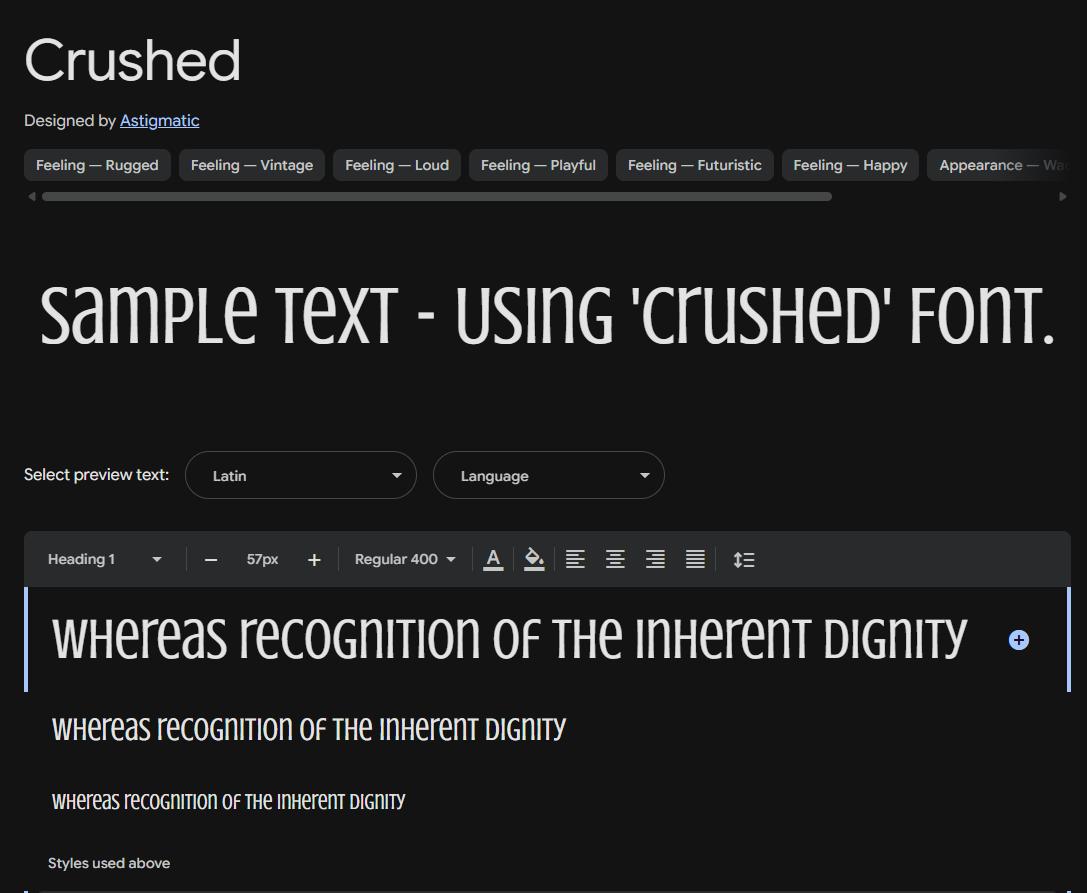
Crushed, an innovative single-style display typeface engineered by Brian J. Bonislawsky of Astigmatic, represents a radical departure from traditional typographic taxonomy by synthesizing uppercase and lowercase glyph morphologies into a cohesive, uniform cap-height baseline. This sans-serif face utilizes condensed horizontal proportions and elongated vertical stems to optimize spatial economy, making it a powerful asset for modern UI/UX environments where high character density is a technical priority. By intentionally blurring the lines between case-specific anatomy, Crushed achieves a rhythmic texture through its unique counter-spaces and terminal apertures, offering a distinctive visual hierarchy that bypasses conventional kerning limitations to deliver a playful yet professional aesthetic in high-impact headline applications.
The Crushed font family functions as a masterclass in controlled eccentricity, utilizing a "tossed" glyph architecture that oscillates between a stiff verticality and a wacky baseline shift to produce a loud, high-contrast display presence. This Astigmatic-designed sans-serif captures a uniquely rugged and vintage soul through its condensed letterforms, yet it simultaneously projects a futuristic minimalism that allows the typeface to appear both playful and happy in commercial contexts. By integrating these disparate aesthetics, the typeface achieves a cute but assertive typographic rhythm, where each character's lack of traditional alignment transforms standard text into a dynamic visual narrative optimized for modern digital legibility and retro-inspired punch.
Incorporating the Crushed typeface into enterprise-level financial reporting, legal contracts, or medical diagnostic interfaces represents a significant departure from typographic best practices, as its distinctive blend of lowercase and uppercase heights creates an erratic baseline that severely compromises reading speed and cognitive processing. Due to its condensed structure and whimsical x-height variability, this single-weight display face fails to provide the necessary stroke contrast and optical clarity required for dense, information-heavy environments, often violating accessibility principles related to character recognition and visual hierarchy. In industries where brand authority is tethered to geometric precision and traditional serif or sans-serif legibility, the playful, non-conformist rhythm of Astigmatic's design undermines professional gravitas and risks misinterpretation of critical data points.
Crushed is generally not recommended for long-form body text because its condensed letterforms and unique stylization can significantly hinder reading speed over time. The font's tight kerning and distinctive verticality create a high cognitive load, making it technically unsuitable for blocks of text exceeding a standard paragraph length.
Geometric sans-serifs like Montserrat or Open Sans provide a balanced contrast to the quirky, narrow proportions inherent in the Crushed typeface. Utilizing a low-x-height companion font ensures that the unique ascenders of Crushed maintain their role as primary focal points within a complex typographic hierarchy.
Using Crushed in all-caps significantly reduces legibility because the design relies heavily on the specific interplay between lowercase and uppercase heights to define its character. Technical analysis of word shapes shows that uniform cap-height removes the vital silhouette cues necessary for rapid letter recognition in narrow-width typefaces.
Crushed excels in large-scale display applications where its unique, condensed letterforms can command visual attention without occupying excessive horizontal space. The font's glyph construction is optimized for high-resolution output, maintaining sharp edges and consistent stroke weights even when scaled above 72 points.
High-contrast color palettes enhance the visibility of Crushed by making its slim silhouettes and tight counters pop against dark or vibrant backgrounds. Chromatic aberration risks are minimized due to the font's clean vector paths, though designers must still monitor luminance contrast ratios to ensure compliance with WCAG accessibility standards.
Crushed is ideal for modern, approachable branding that seeks to convey a sense of creativity and efficiency through a tall, narrow typographic structure. The font's distinct character terminals allow for precise kerning adjustments that facilitate the creation of memorable, balanced wordmarks in vector-based design environments.
For printed materials, Crushed should generally be kept at a minimum of 14 points to prevent the narrow counters from filling in during the physical ink absorption process. Because the typeface lacks specific "ink traps" in its design, readability drops sharply when the resolution falls below a 300 DPI threshold at small scales.
Crushed is best used sparingly in digital interfaces, specifically for call-to-action buttons or navigation tabs where a distinct visual identity is prioritized over rapid scanning. Sub-pixel rendering can occasionally blur the thin vertical stems of the font on low-density displays, requiring careful CSS font-smoothing implementations to maintain clarity.
This font conveys a playful yet sophisticated mood, effectively blending a hand-drawn feel with the structured geometry of a condensed sans-serif. Psychologically, the elevated x-height and narrow proportions evoke a sense of modernity and optimistic urbanism in contemporary visual communications.
Crushed is highly effective for vertical layouts because its narrow width allows for stacking letters without creating excessively wide or disruptive vertical columns. The consistent vertical axis of each glyph ensures that the optical center remains aligned, which is critical for maintaining balance in block-stacking typographic compositions.